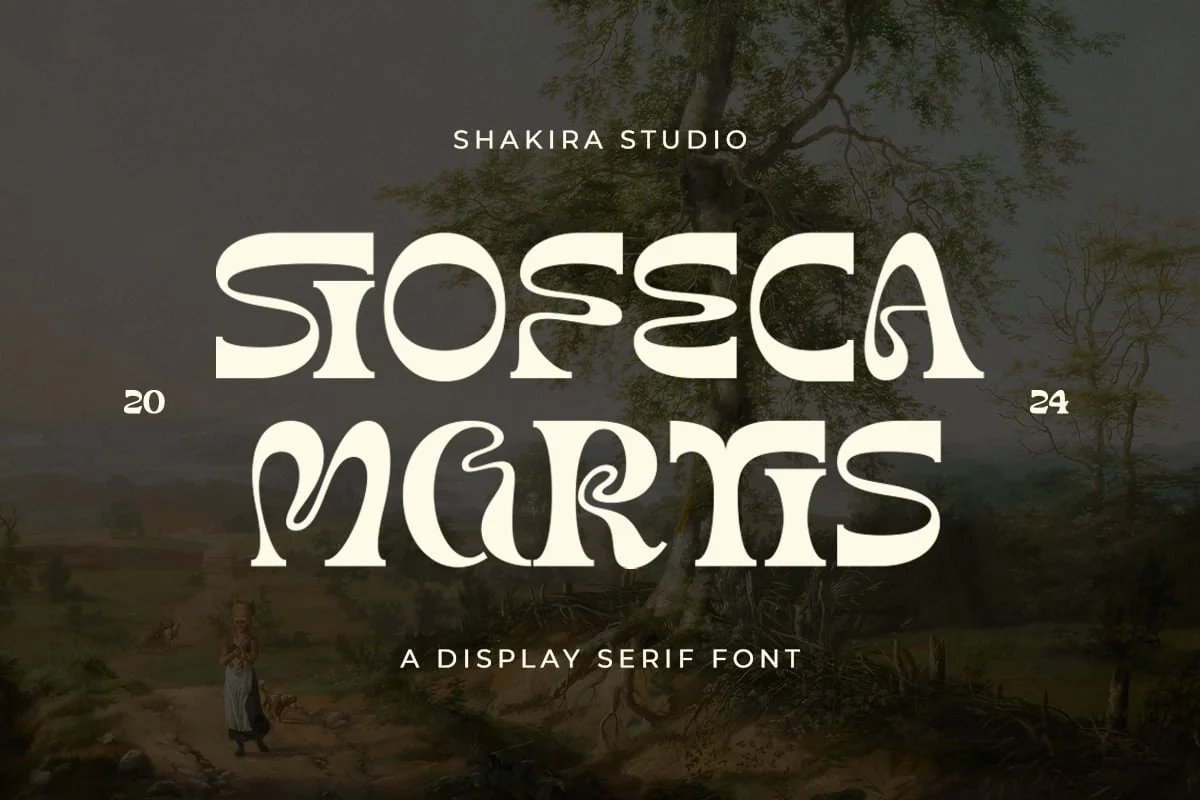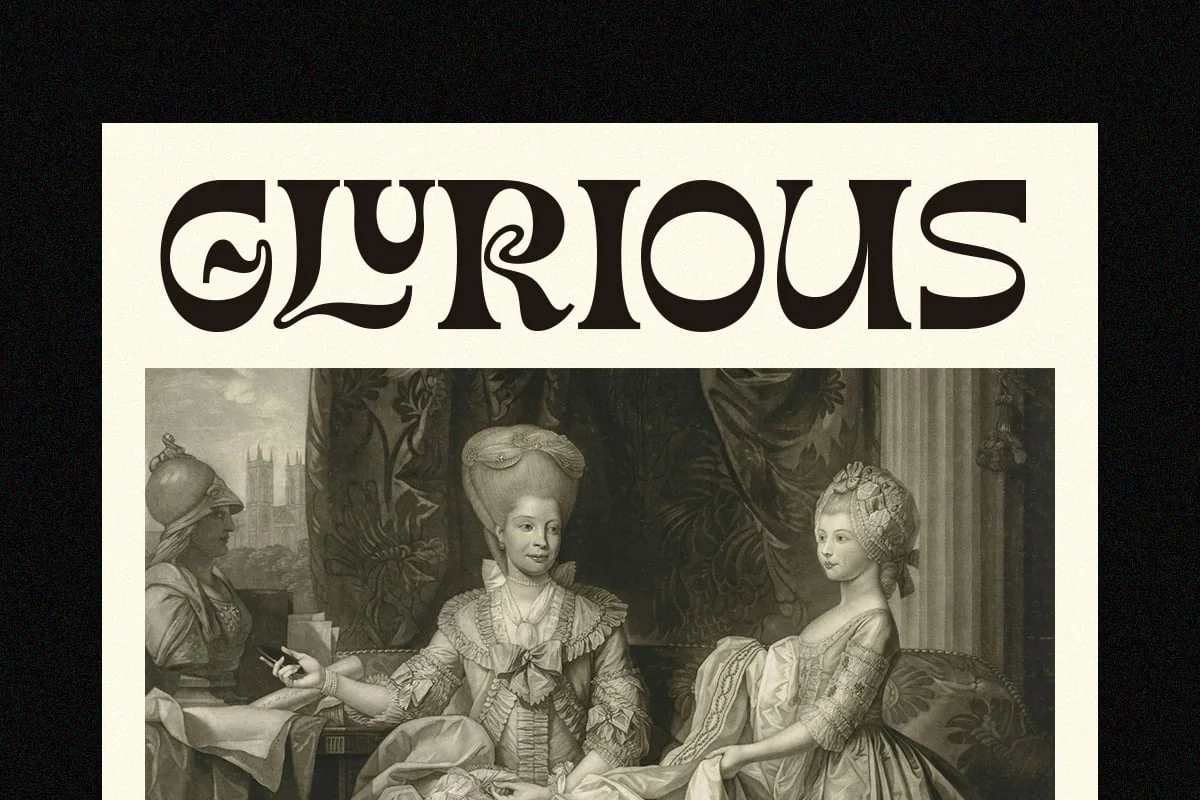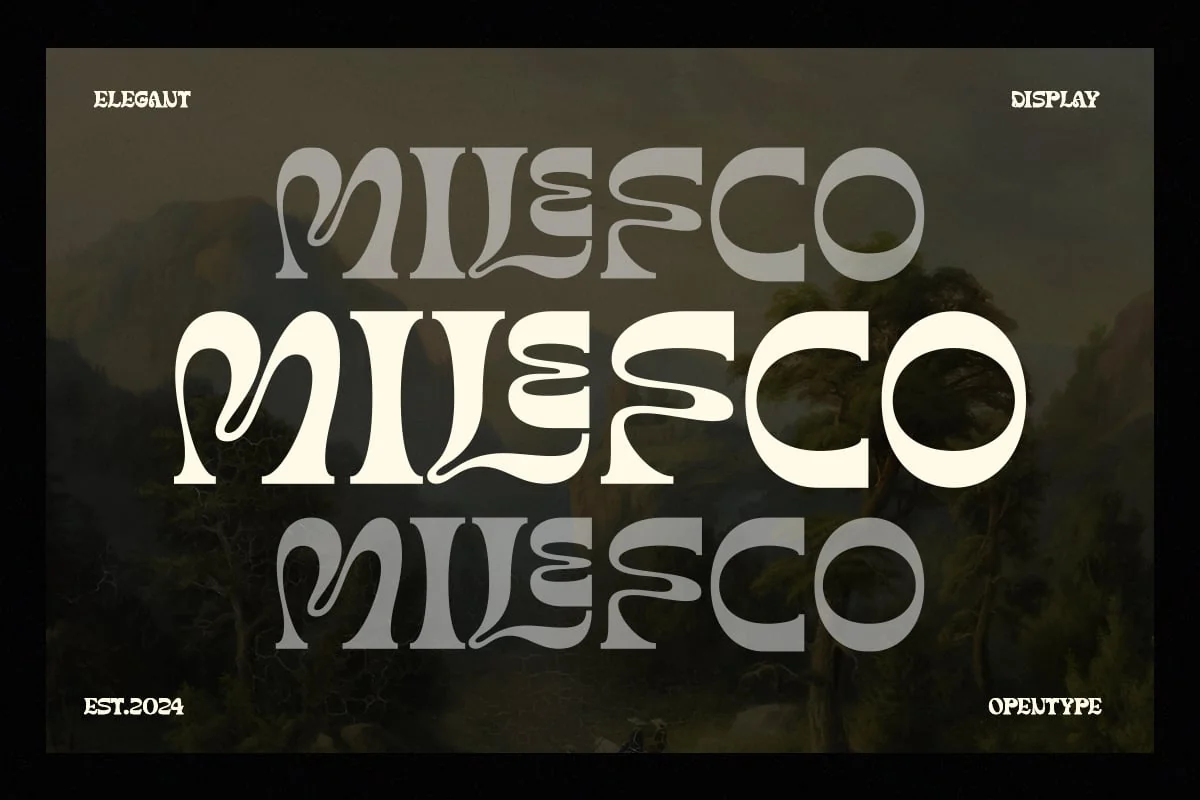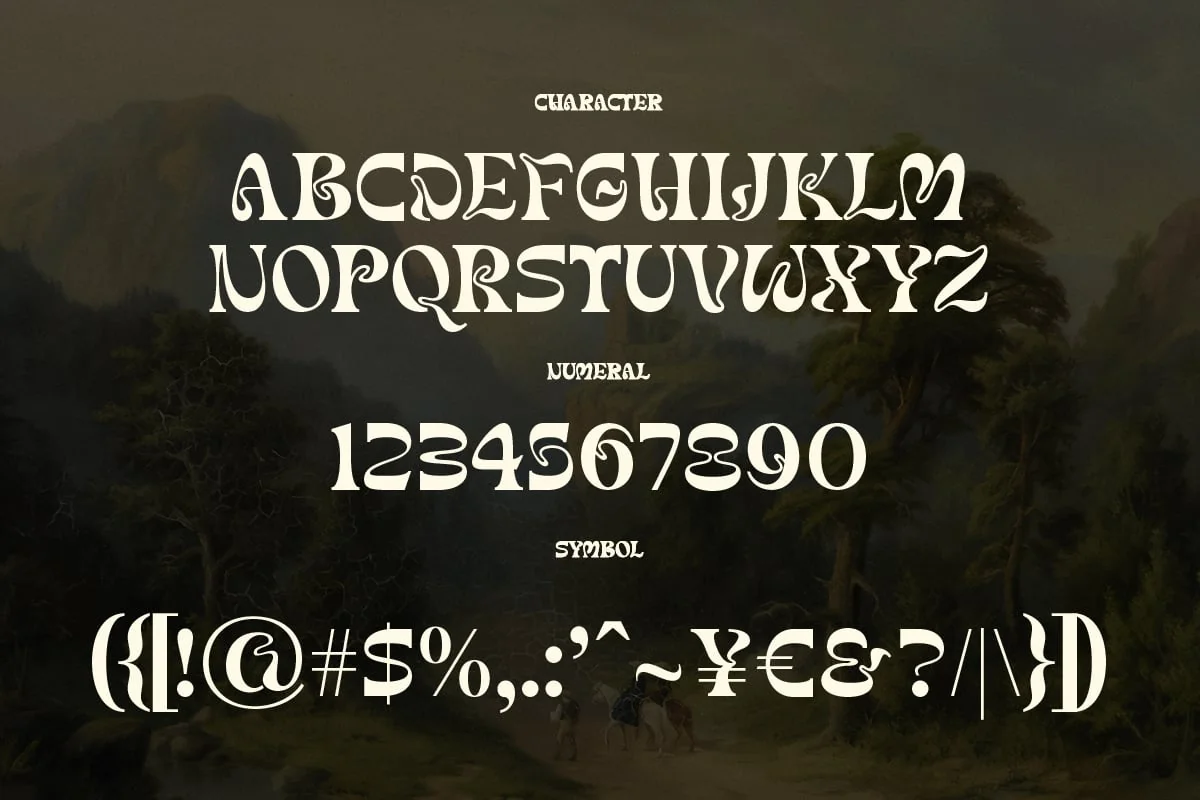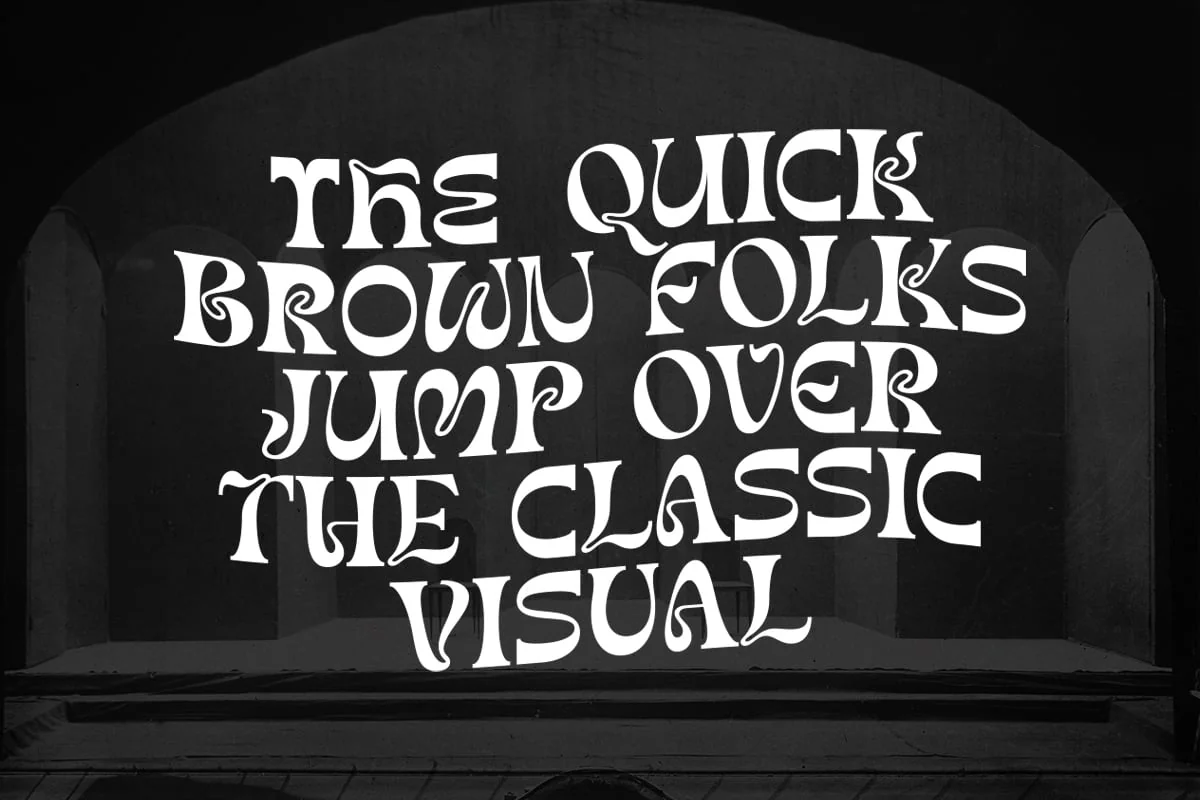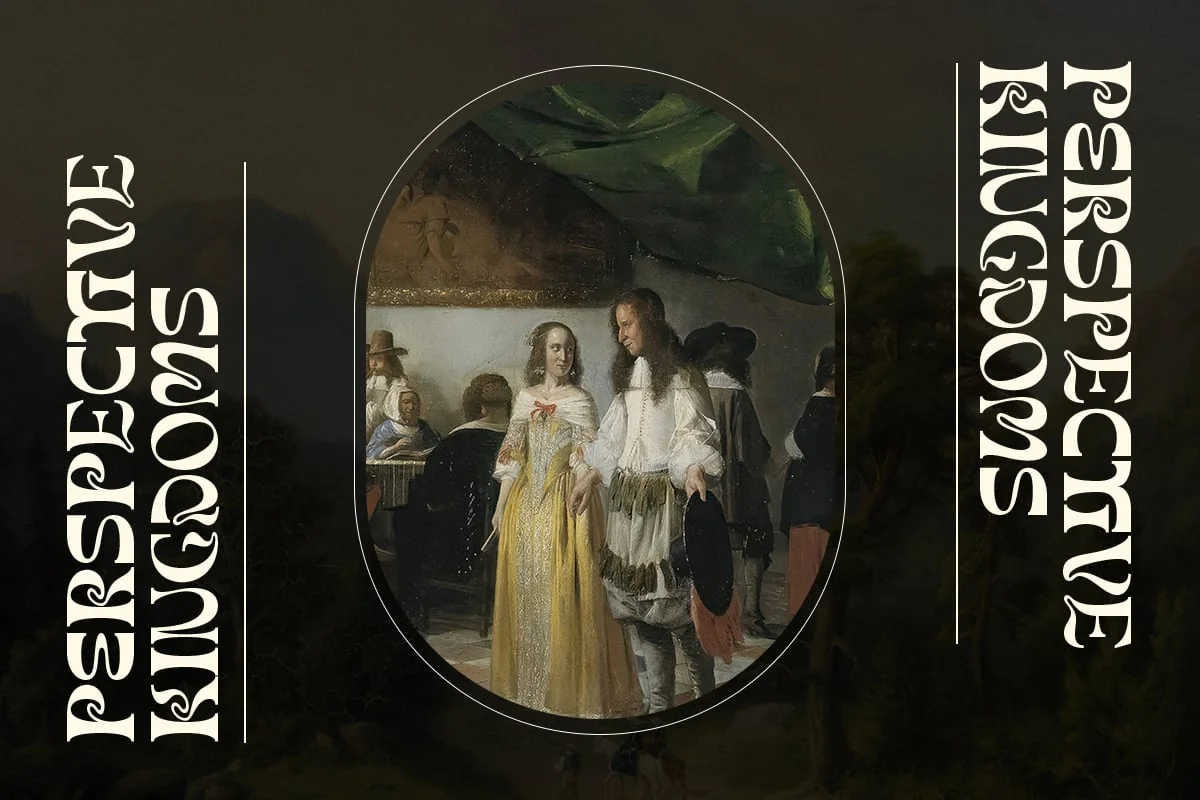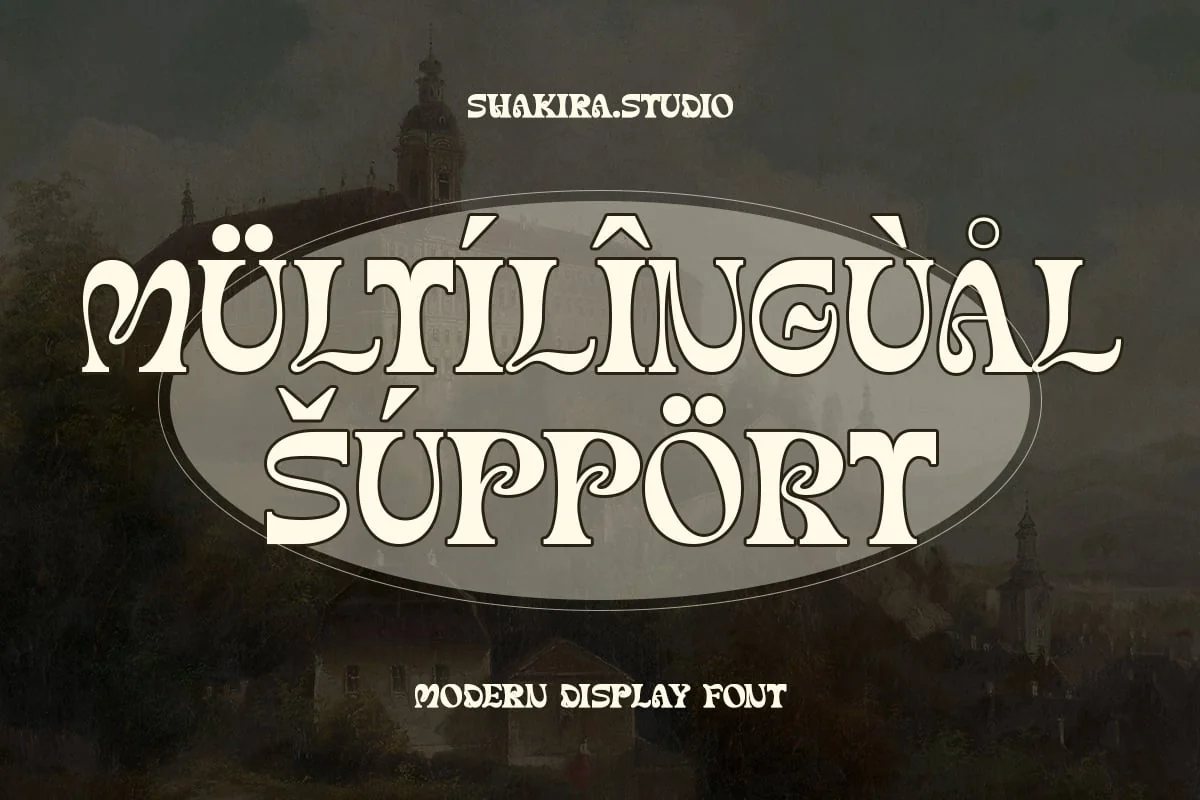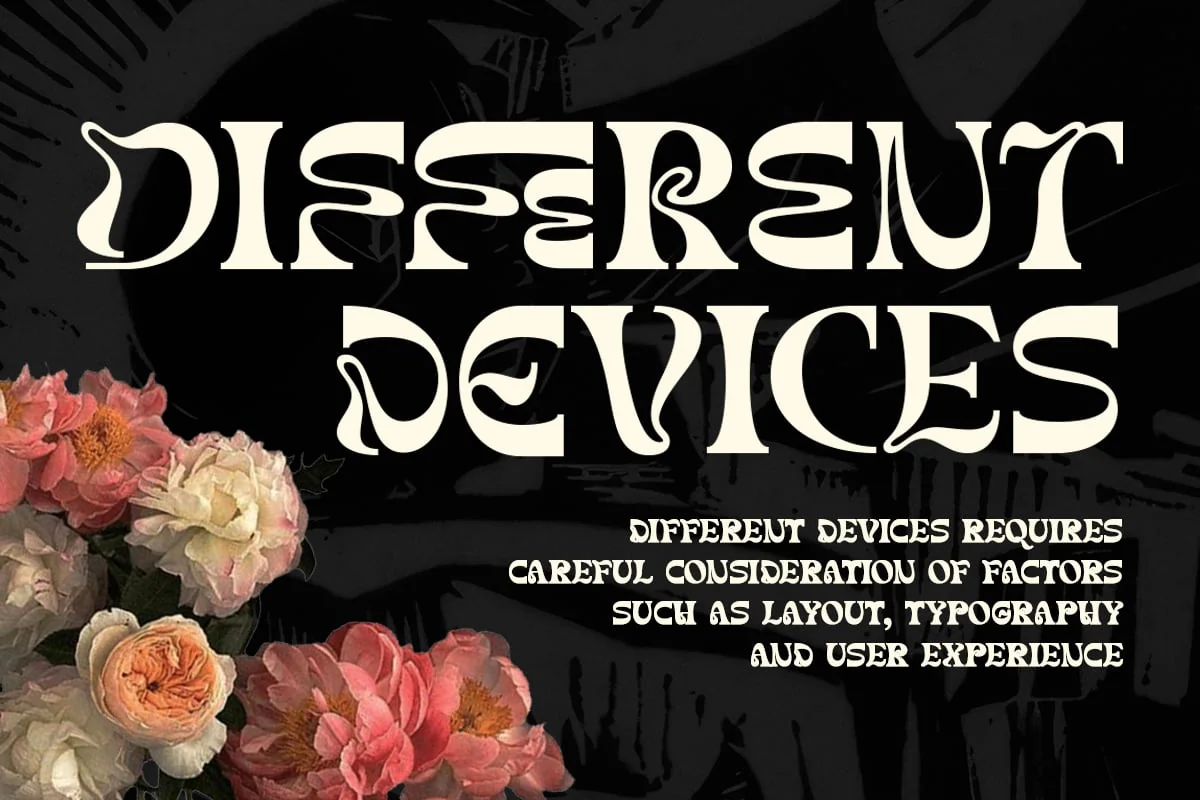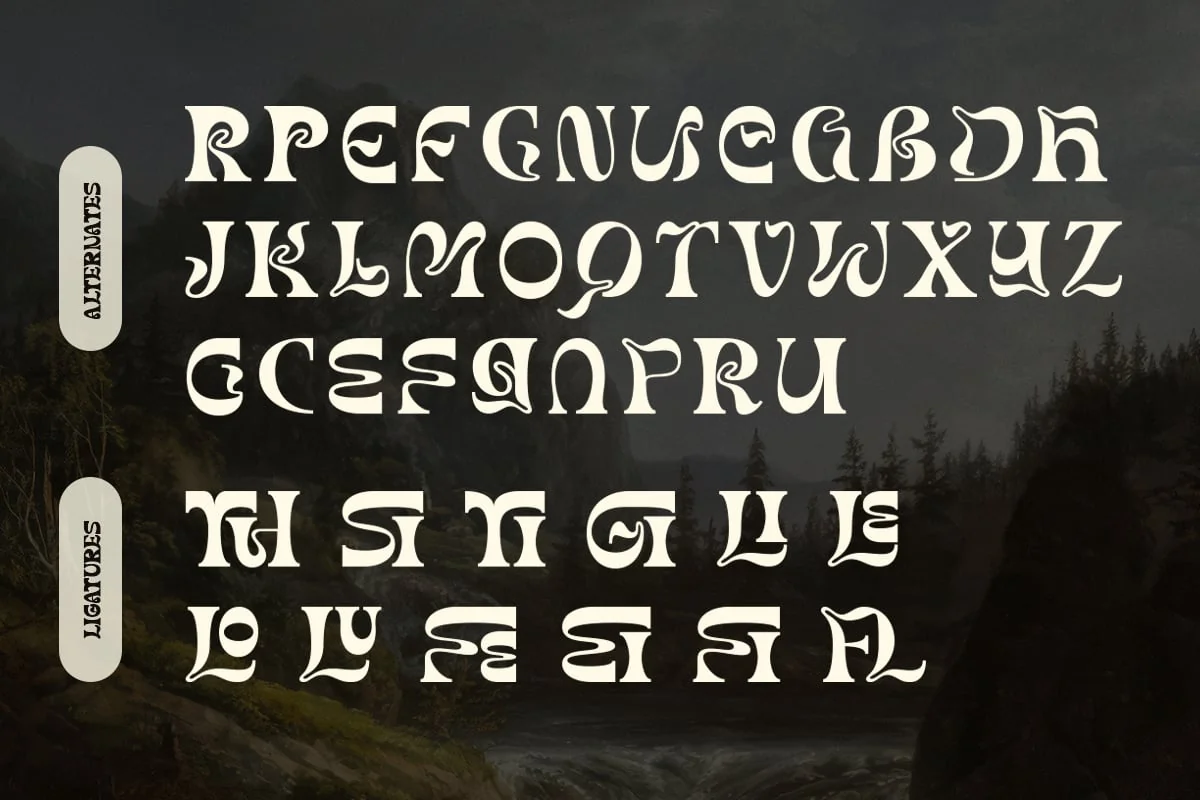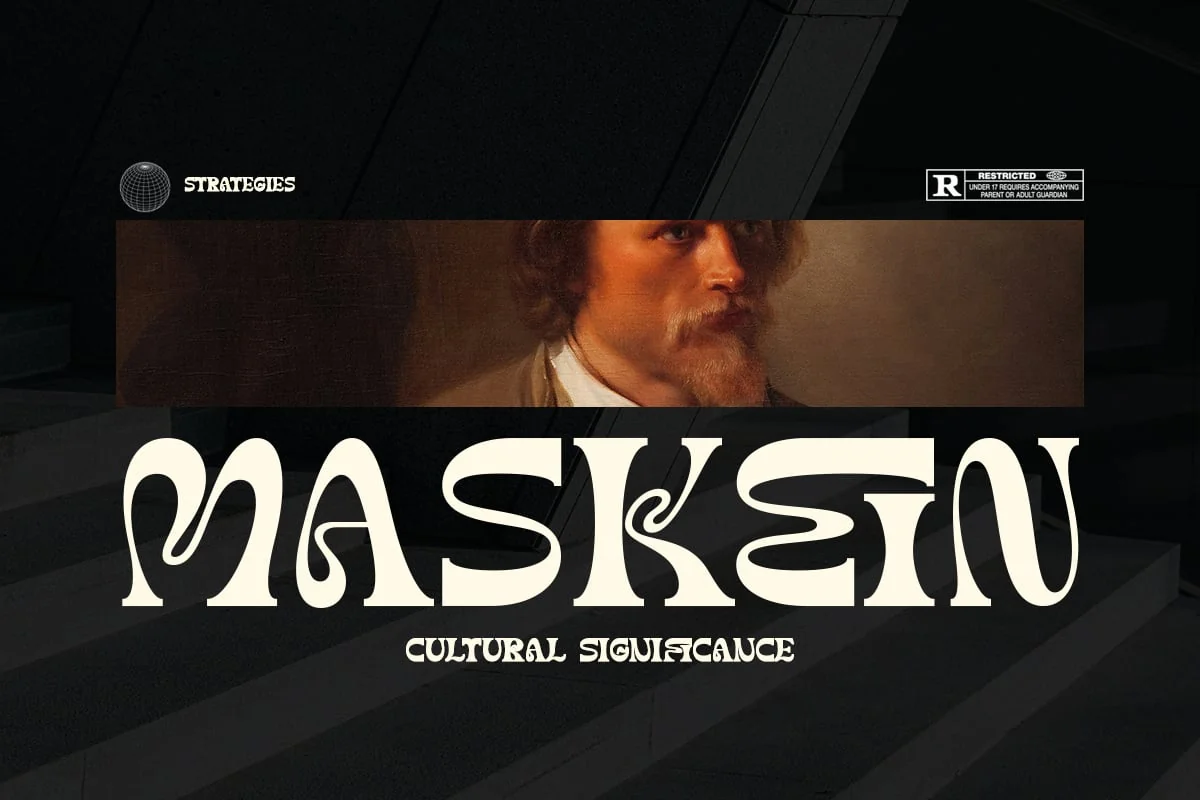
Siofeca Martis – Modern Tattoo Logo Font
Siofeca Martis – A Psychedelic Serif Font That Redefines Typography
Siofeca Martis is not just a font—it’s a bold, creative statement that pushes the boundaries of traditional serif design. With its psychedelic flair and striking display, this font is perfect for designers looking to add a touch of whimsy and intrigue to their projects. Whether for logos, posters, album covers, or branding, Siofeca Martis brings a unique and mesmerizing energy to every design.
Where Tradition Meets Psychedelic Innovation
Siofeca Martis combines the classic elegance of serif fonts with a bold, psychedelic twist. Its vibrant characters and intricate details make it ideal for projects that demand attention and creativity. From eye-catching posters to standout logos, this font ensures your designs leave a lasting impression.
Key Features
- Psychedelic Serif Design – Perfect for logos, posters, album covers, and creative branding.
- Unique Characters – Adds a touch of whimsy and intrigue to your designs.
- Multilingual Support – Compatible with over 20 languages, including English, French, German, Spanish, and more.
- OpenType Features – Ligatures and alternates for added creativity and customization.
Elevate Your Designs with Siofeca Martis
Siofeca Martis isn’t just a font—it’s a tool to transform your creative projects into bold, unforgettable statements. Whether you’re designing for print, digital, or branding, this font ensures your work stands out with a unique and mesmerizing vibe.